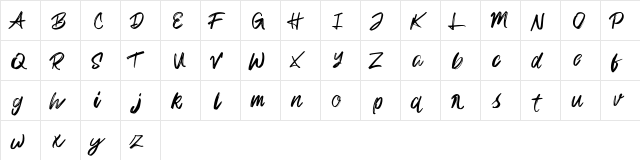
Rampage Kid Regular
| Foundry | Degi Kurniawan |
| Designer | Degi Kurniawan |
Design Context for Rampage Kid Typeface
Rampage Kid is a composed and adaptable typeface that performs quietly and consistently across a wide range of design contexts.